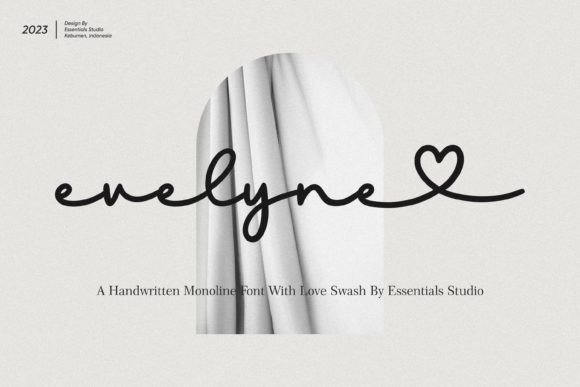
Introducing Evelyne Font, the epitome of elegance and grace. Created by the renowned Essentials Studio, this script font is designed to captivate and mesmerize. Evelyne is not just any font; it is the Best Font For Wedding Book, ensuring that every cherished moment is beautifully immortalized.
With its exquisite monoline style and delicate love swash, Evelyne exudes a romantic charm that is unparalleled. This font is a true testament to the power of handwritten artistry, seamlessly blending tradition with modernity. Its flowing strokes and impeccable curves are bound to leave a lasting impression on any project.
Evelyne Font is a versatile companion, effortlessly elevating any design endeavor. Whether you're embarking on a product packaging venture, a branding project, or even curating a captivating megazine, Evelyne has got you covered. Its versatility extends to the realm of social media, where it can effortlessly enhance your posts, making them stand out among the crowd.
But where Evelyne truly shines is in the realm of weddings. Every love story deserves to be told in the most enchanting way possible, and this font ensures just that. From elegant wedding invitations to heartfelt vows, Evelyne adds a touch of sophistication and grandeur to the celebration of eternal love.
This font is more than just letters on a screen; it is a means to express emotions and convey messages with utmost clarity. Evelyne allows your words to gracefully dance above any background, effortlessly capturing the attention of your audience. Its timeless appeal transcends boundaries, making it suitable for any occasion.